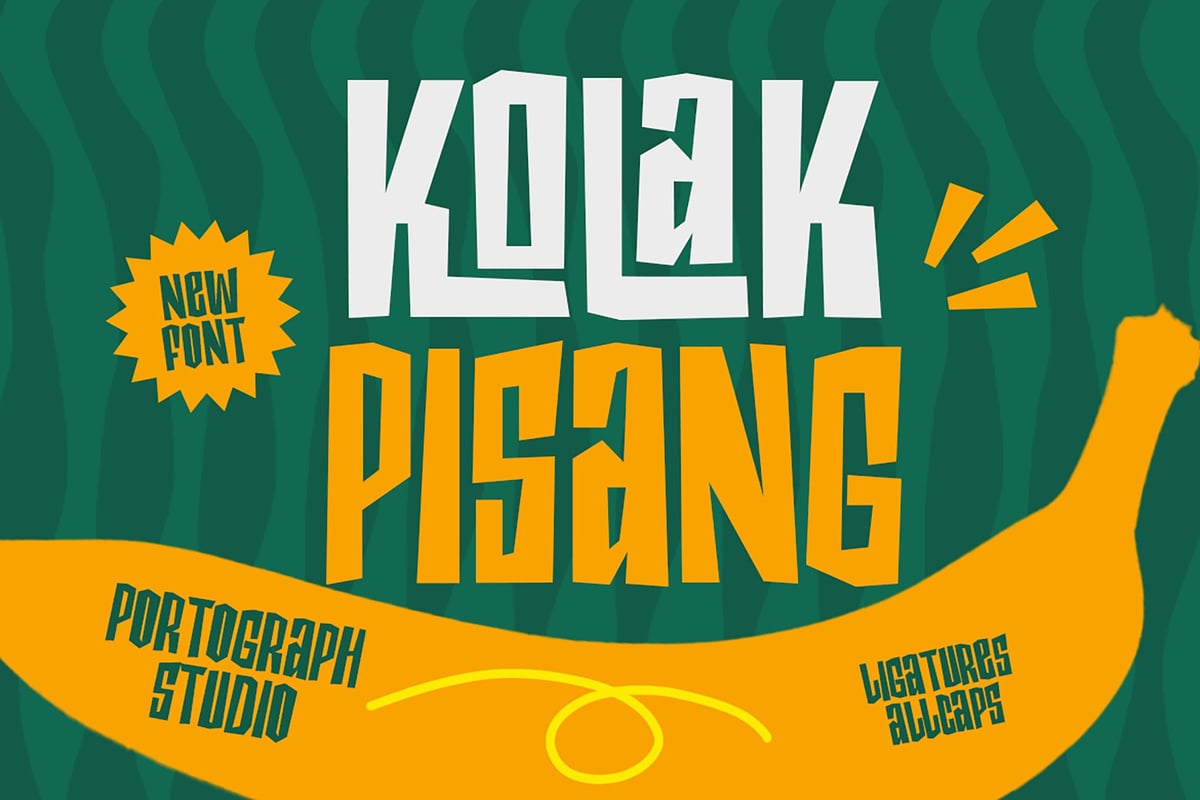
Kolak Pisang – Food Font
Make your food branding sizzle with Kolak Pisang – the bold condensed display font that captures tropical vibes and street food energy. This attention-grabbing typeface features tall letterforms and strong shapes designed to make your headlines pop. Drawing inspiration from tropical culture and playful food branding, Kolak Pisang brings an energetic personality that's perfect for modern culinary designs. Package includes: OTF TTF WOFF WOFF2 Key Features: Uppercase (All Caps) Ligatures Numerals P...